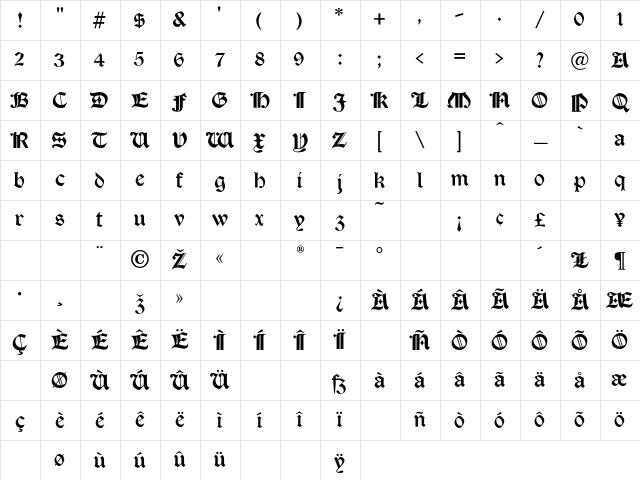
TudorText Regular Free Font
TudorText Regular
Foundry: Digitized by Dan X. Solo. Software Dover Publications, Inc
Design Context for TudorText
TudorText is a composed and adaptable typeface that performs quietly and consistently across a wide range of design contexts.
Who designed the TudorText Regular font?